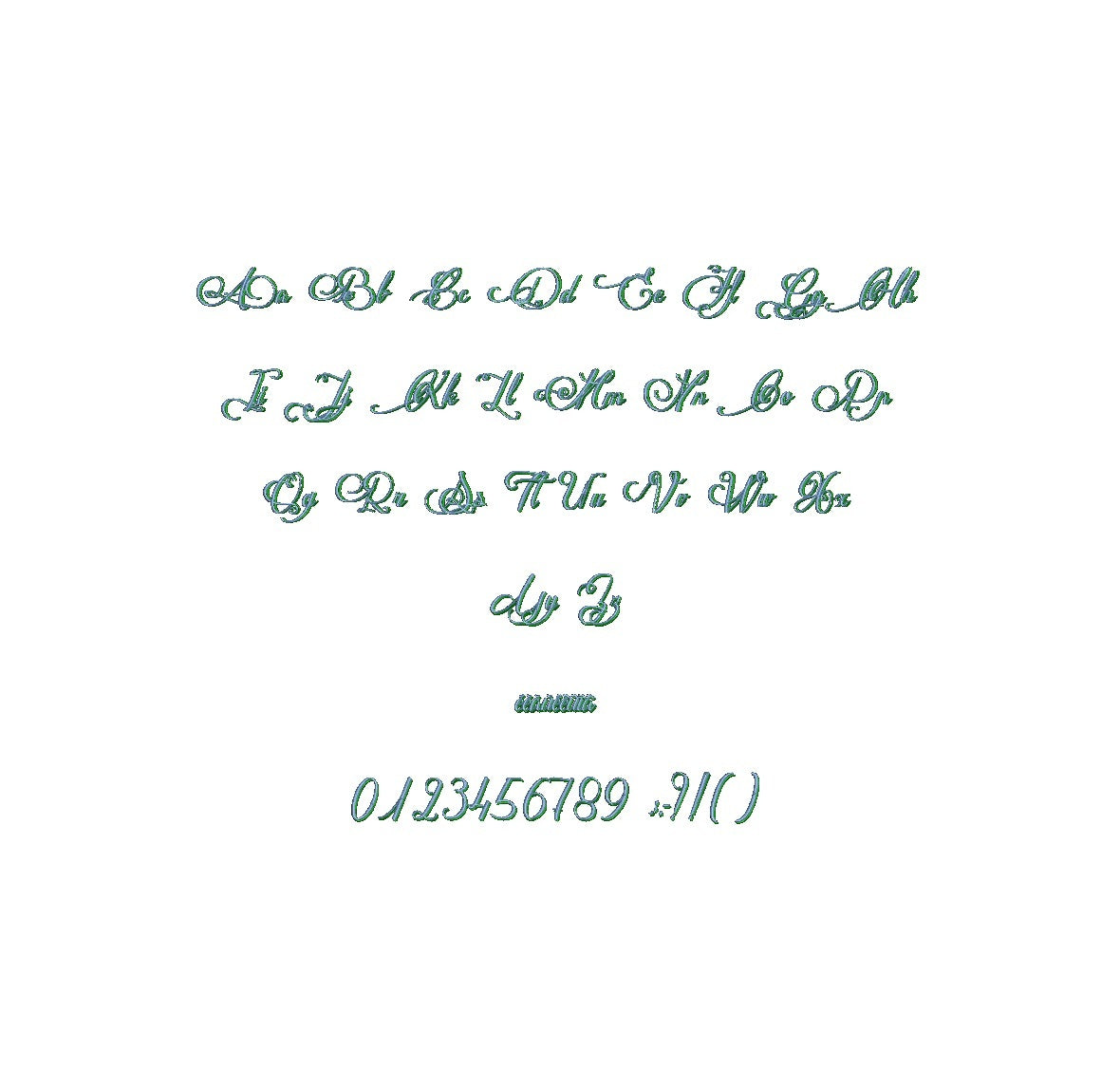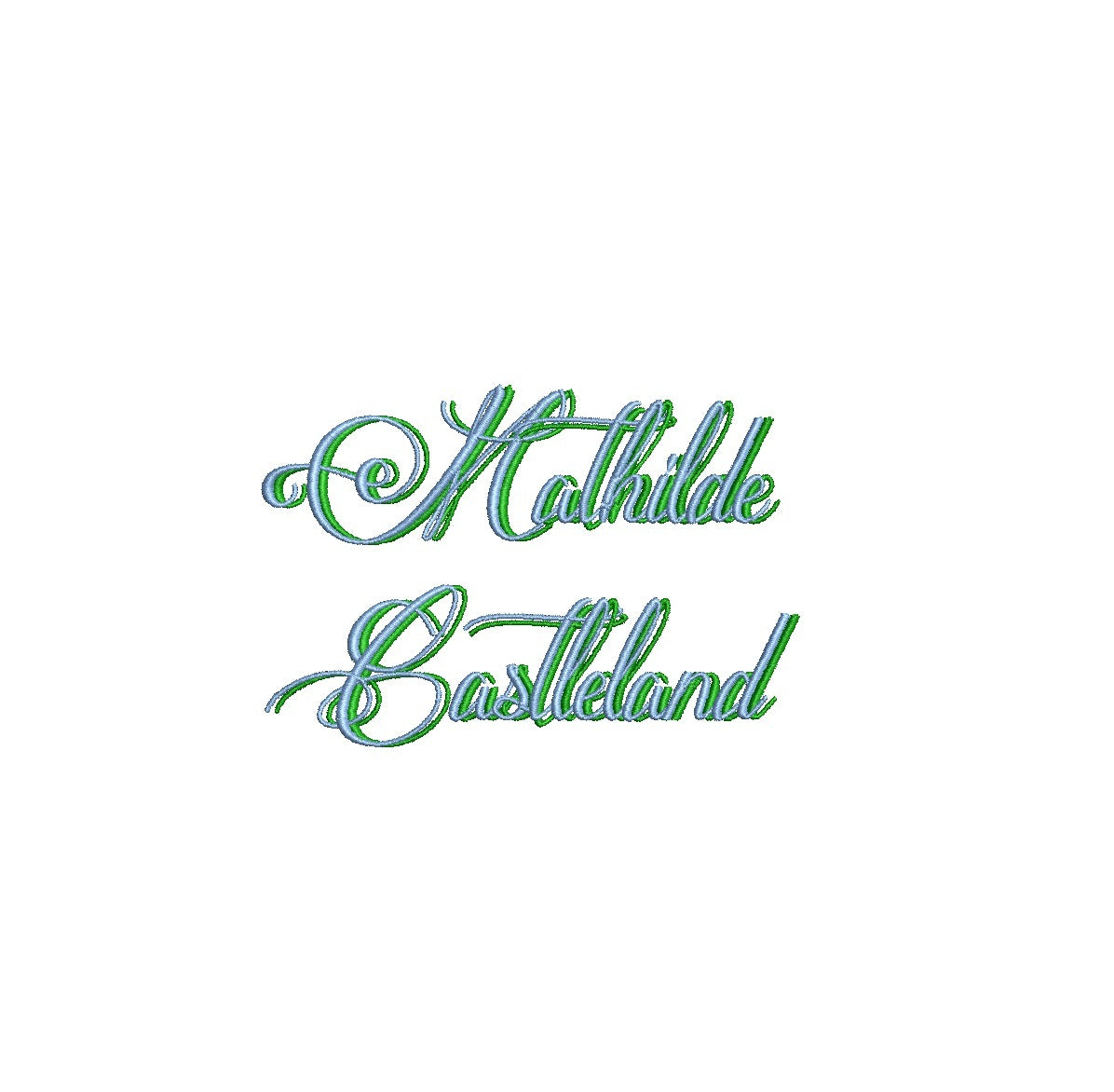
Enhance your designs with the enchanting Mathilde Castleland Shadow ESA font. Fully compatible with Wilcom Studio e4.5.6 and Hatch 3 versions and up, this font adds a touch of vintage elegance and artistic allure to your projects. The font's intricate shadows and graceful lines create a captivating visual impact that sets your designs apart. Streamline your creative process and achieve flawless results by utilizing this font with industry-leading software. Elevate your projects with the compatibility of Mathilde Castleland Shadow ESA font and craft visuals that radiate timeless charm. Embrace creativity and sophistication for your design journey today!